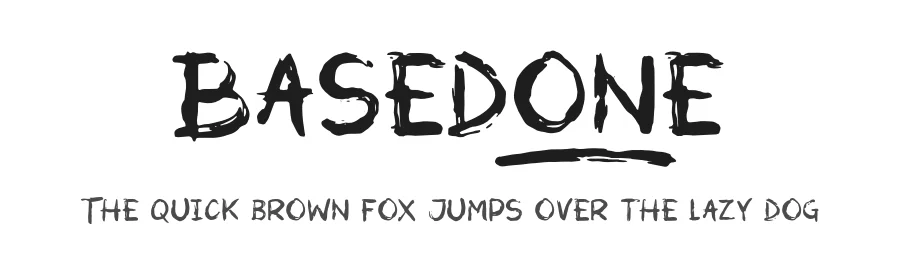
About Jack Brusher Font
A rather rough font based on a sketch I made using a brush and watercolors. Lower case letters are intentionally the same as upper case to keep the style. =)